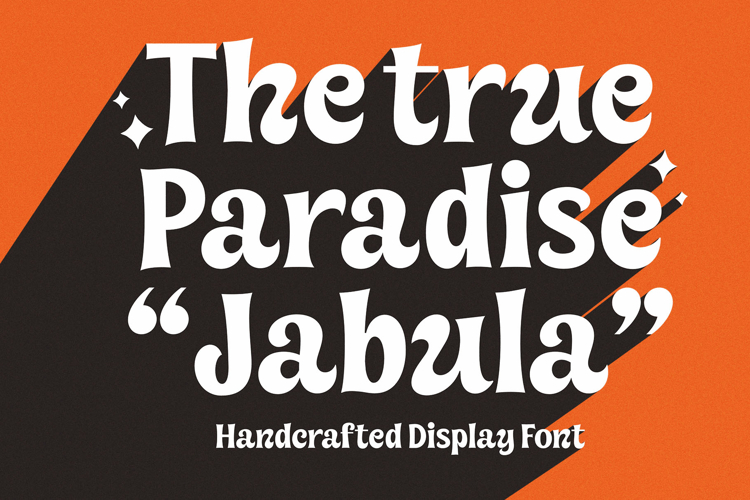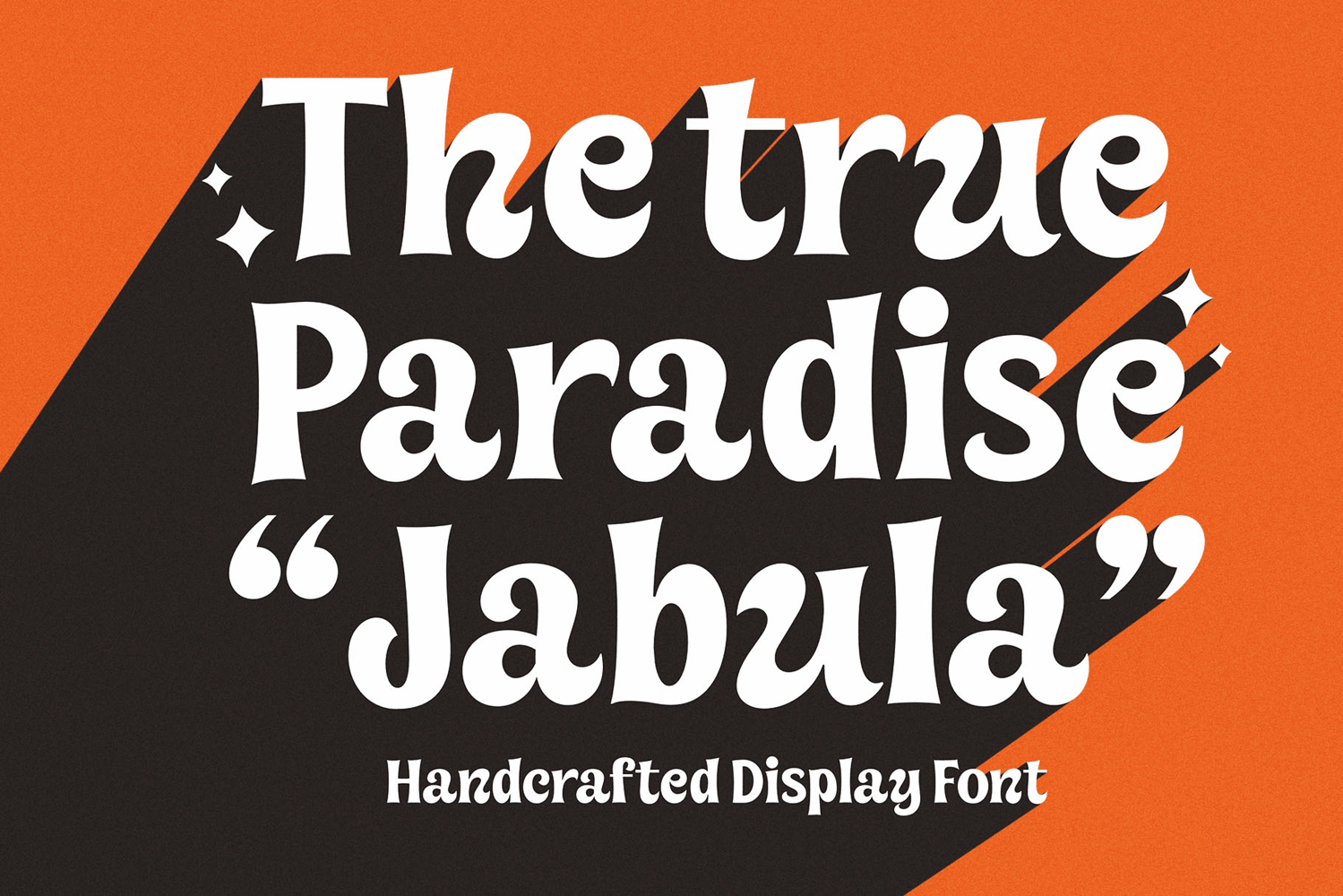
Jabula Handcrafted Display is a bold serif font with an organic, handcrafted touch. Its playful curves and dynamic edges bring a lively personality to any design — from retro posters and packaging to eye-catching headlines. Perfect for brands that want to stand out with a strong yet friendly vibe.